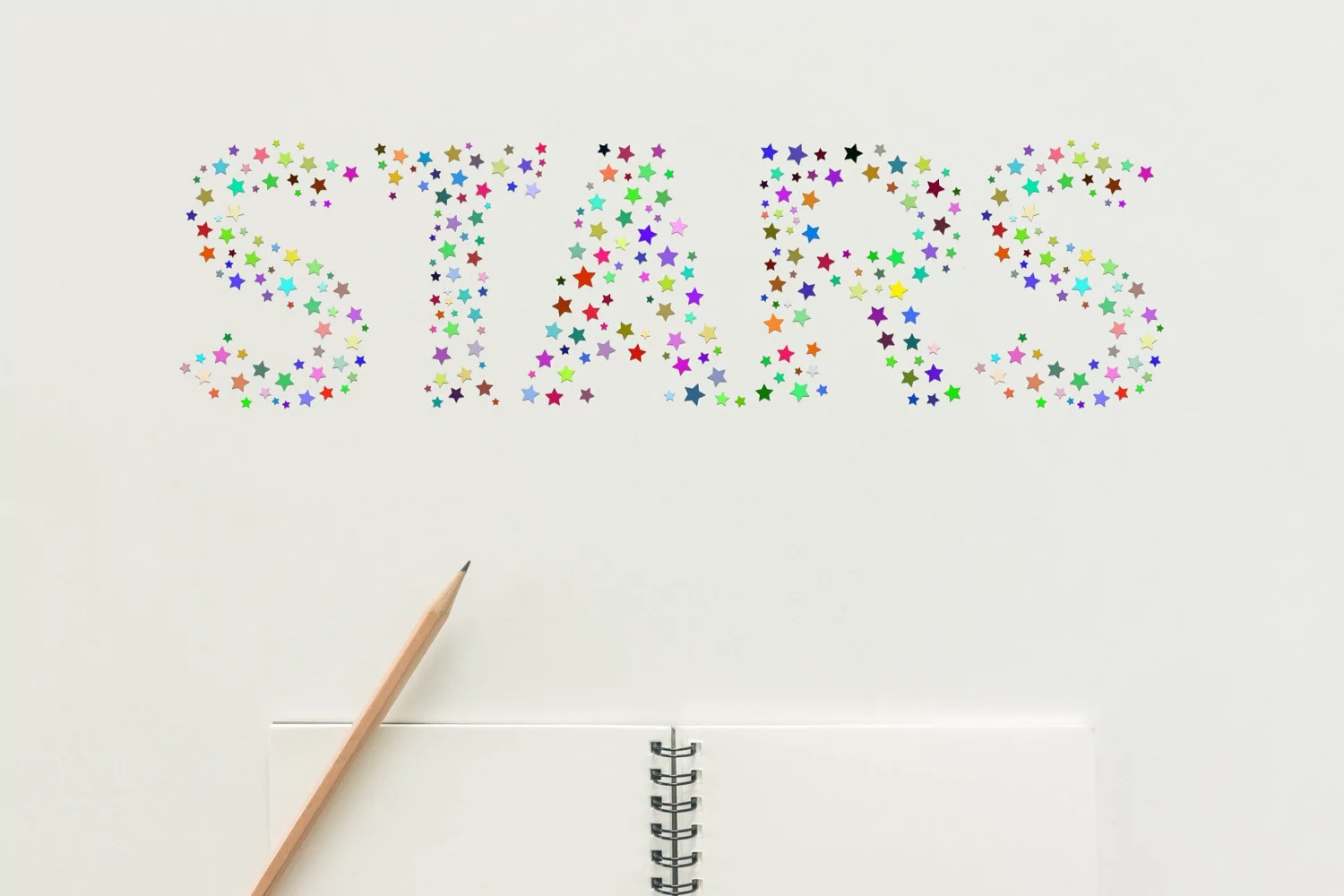
Color Stars is a color SVG font.
It contains regular font and colored SVG Font.
Great typeface with color stars pattern.
Also great for Christmas festivities.
For posters, logos, packaging, invitations, websites, T-Shirts and more.